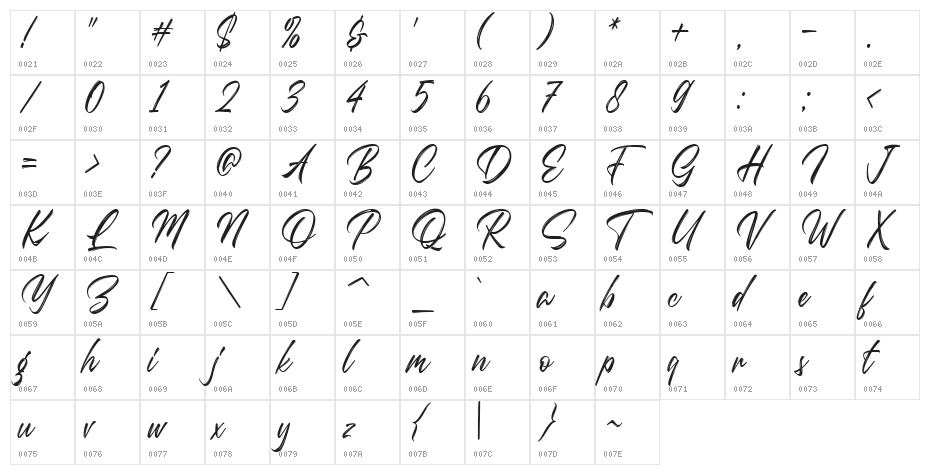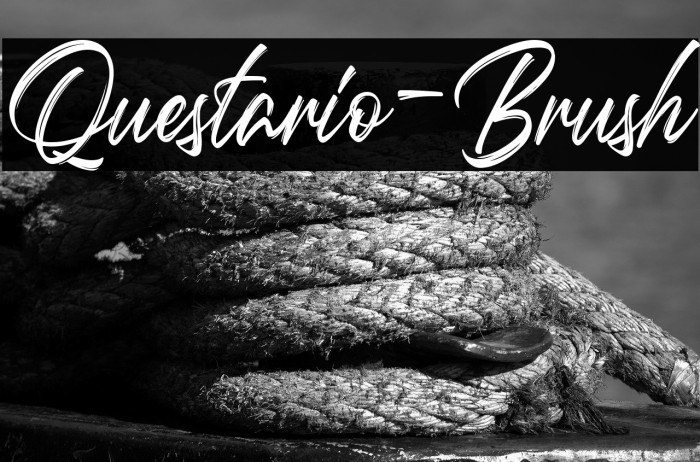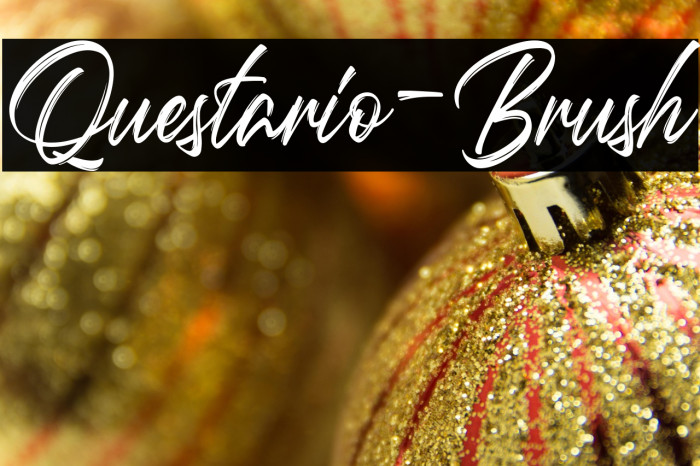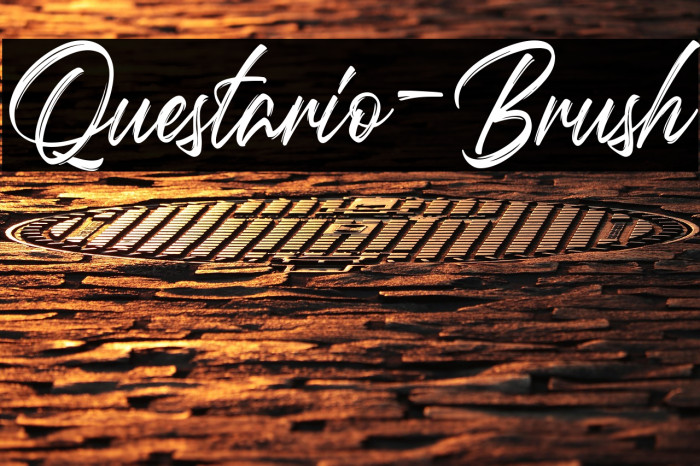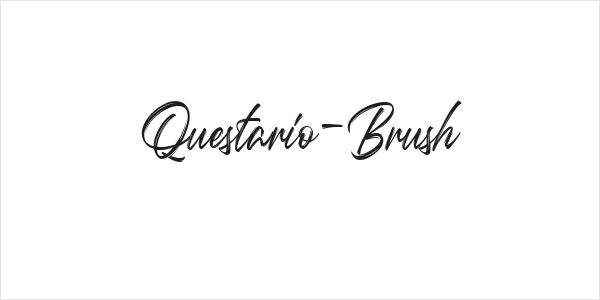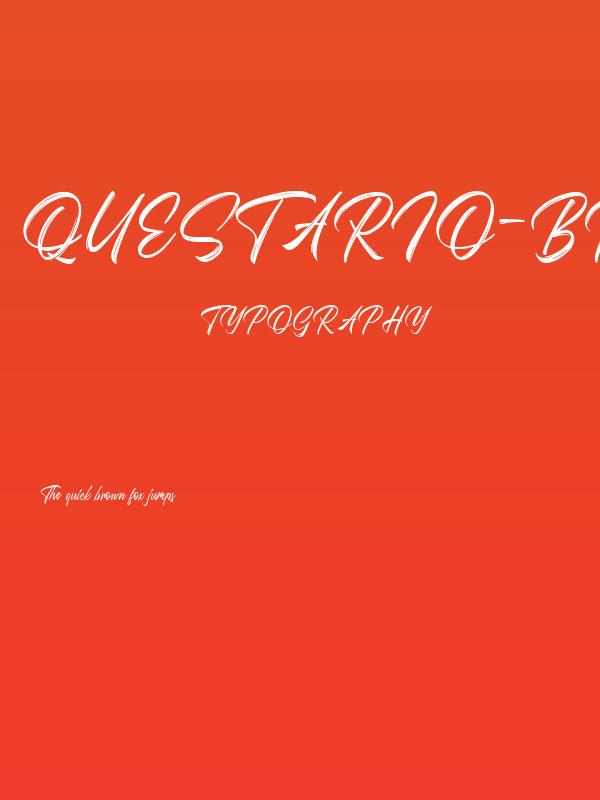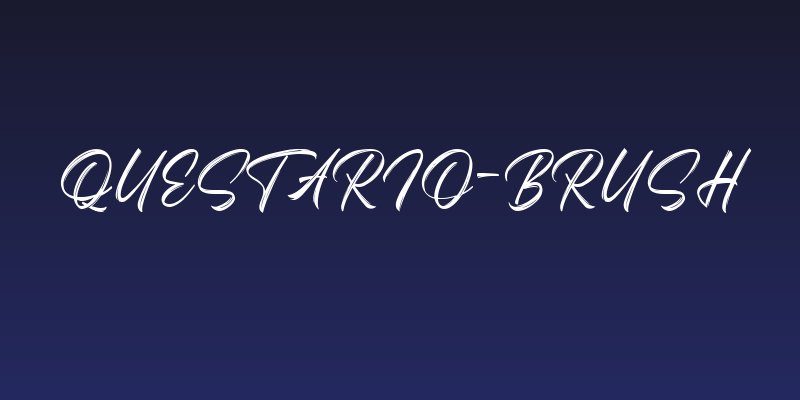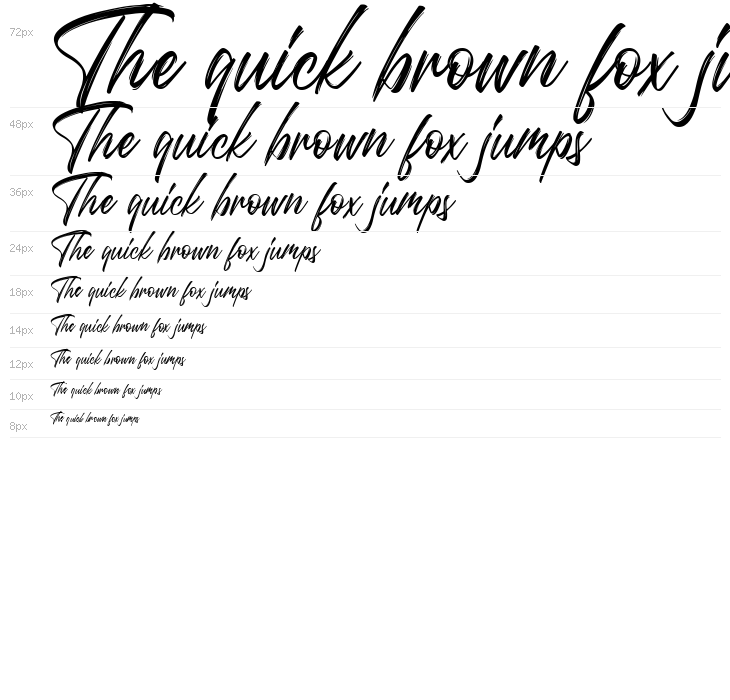
Questario-Brush Font
Questario-Brush Description
This font exudes a dynamic and energetic style, characterized by its fluid, brush-like strokes that give it a handwritten appearance. The letters are slightly slanted, enhancing the sense of motion and spontaneity. The uppercase and lowercase letters are well-balanced, with a consistent flow that maintains readability despite the artistic flair. The numbers and special characters follow the same design ethos, ensuring a cohesive look across all glyphs. The font's bold strokes and varying line thicknesses add depth and personality, making it suitable for projects that require a touch of creativity and individuality.
| Proposed Projects | Ideal for branding, posters, invitations, and any project needing a personal, artistic touch. |